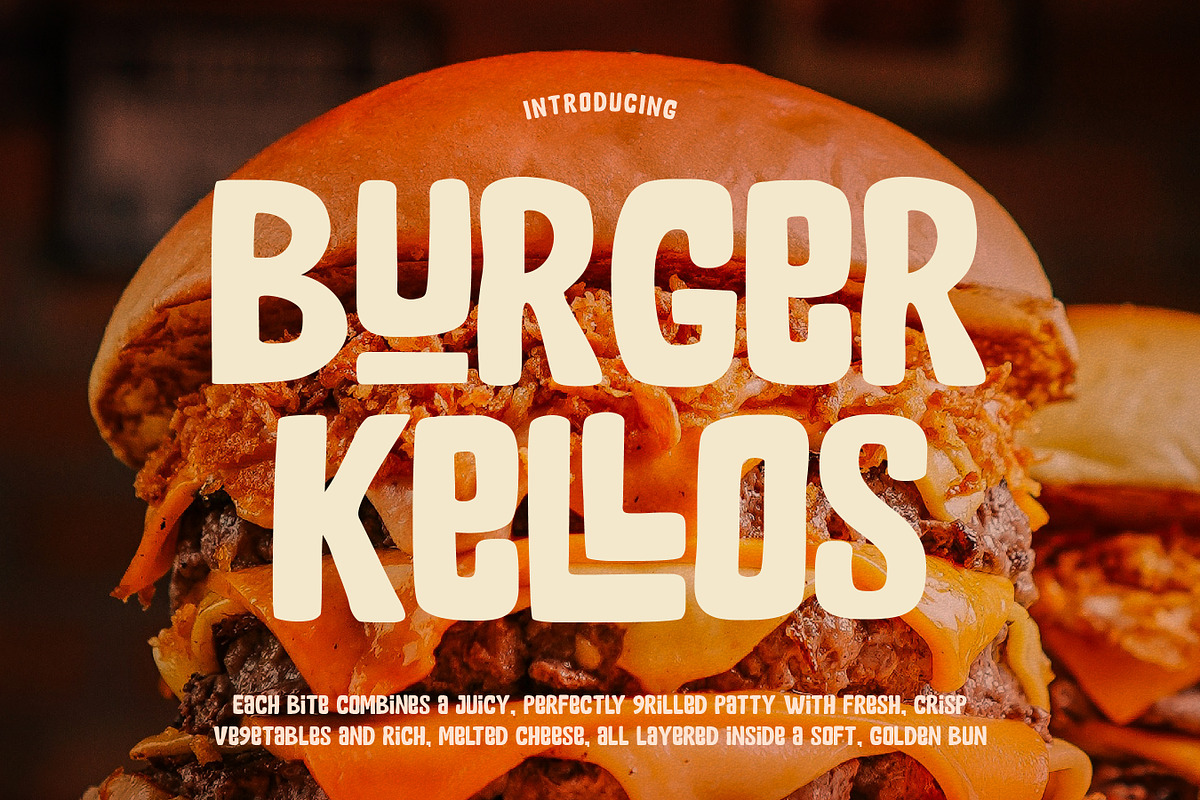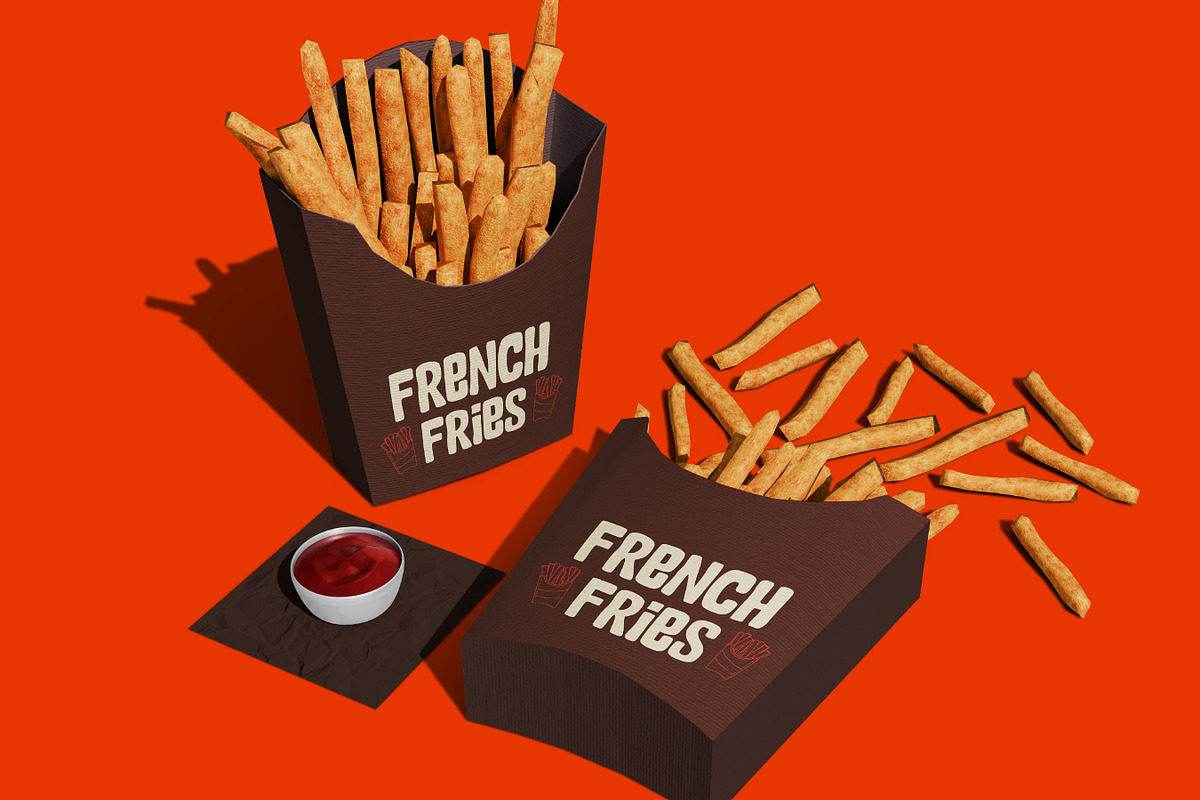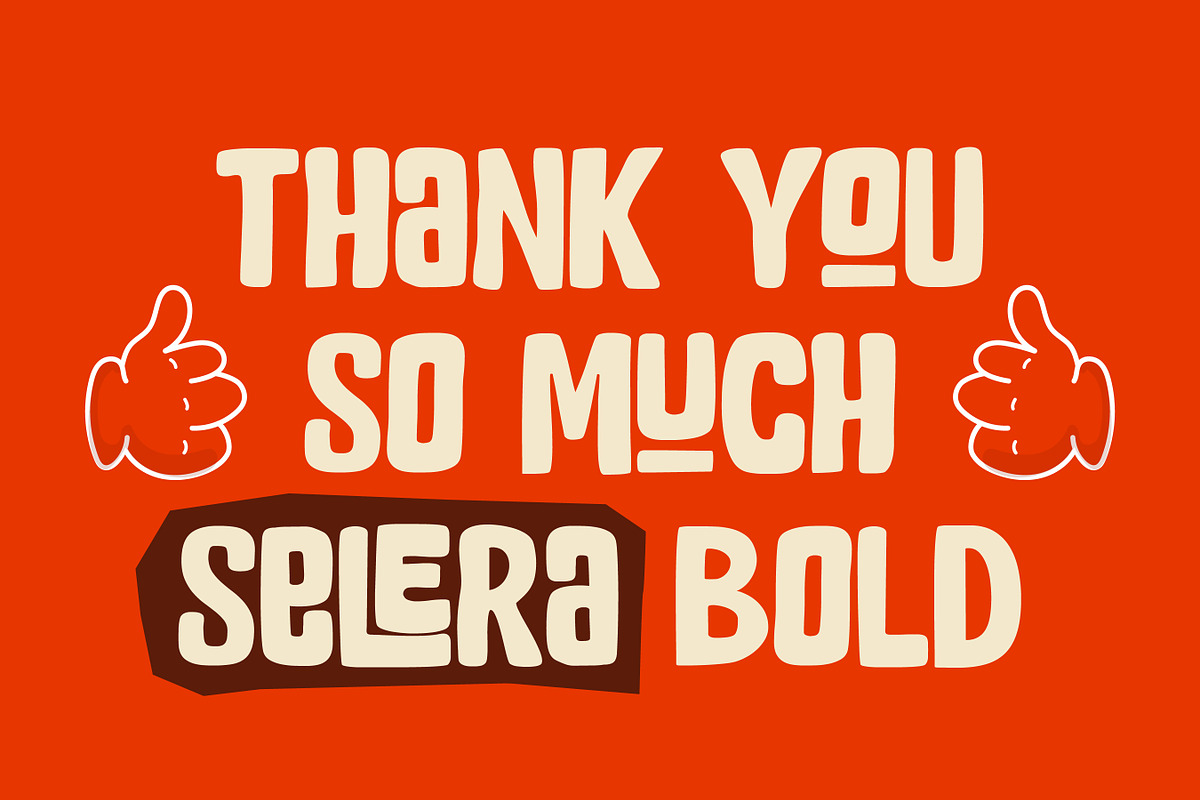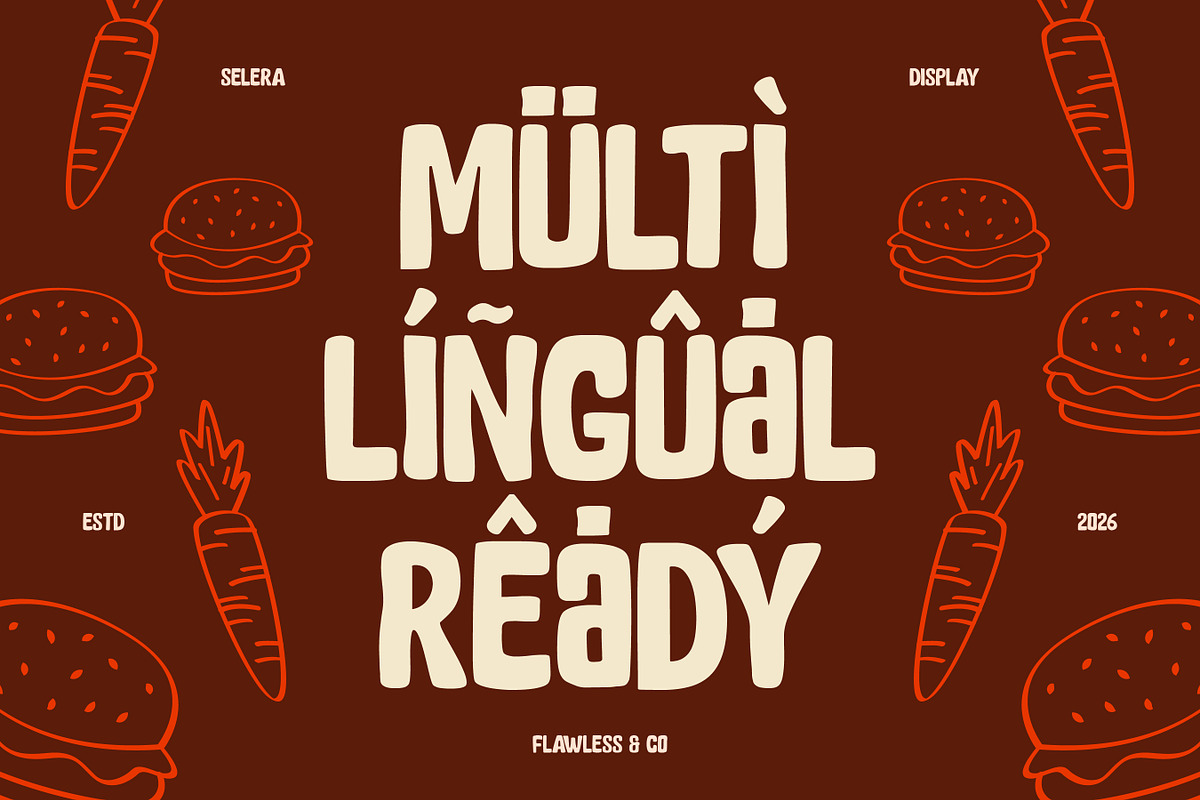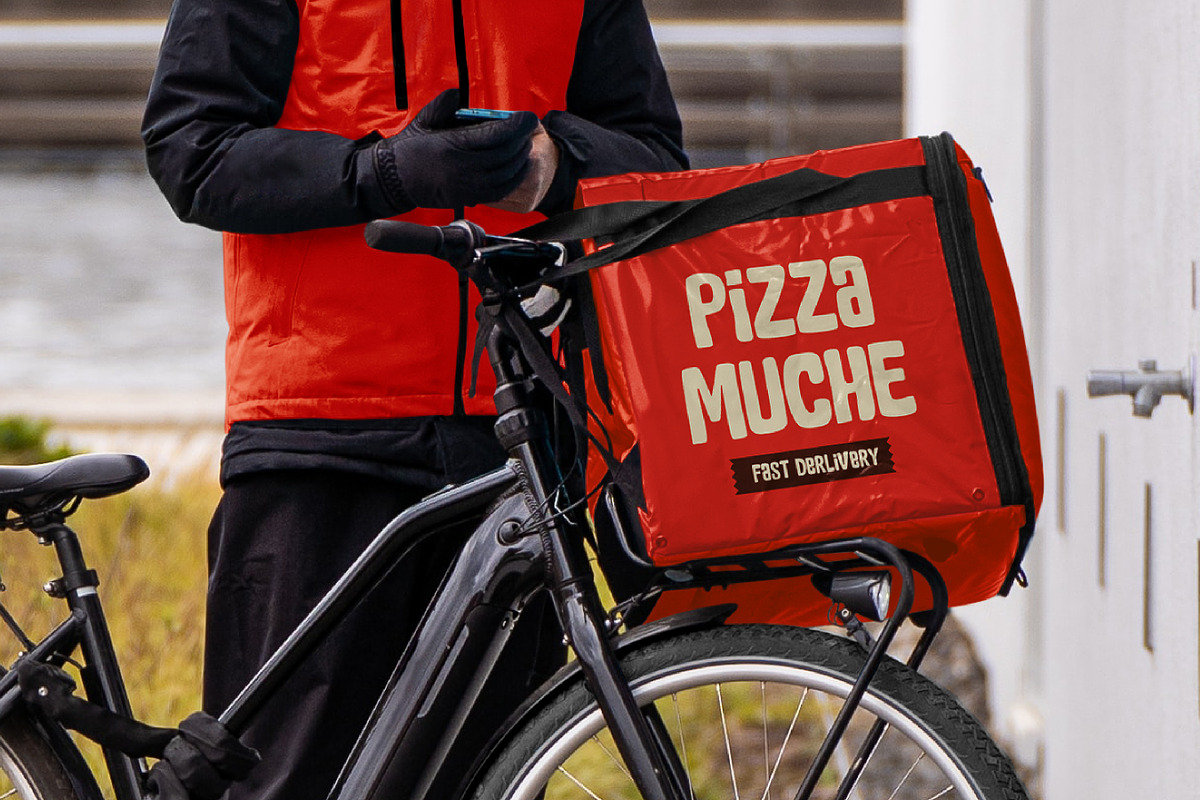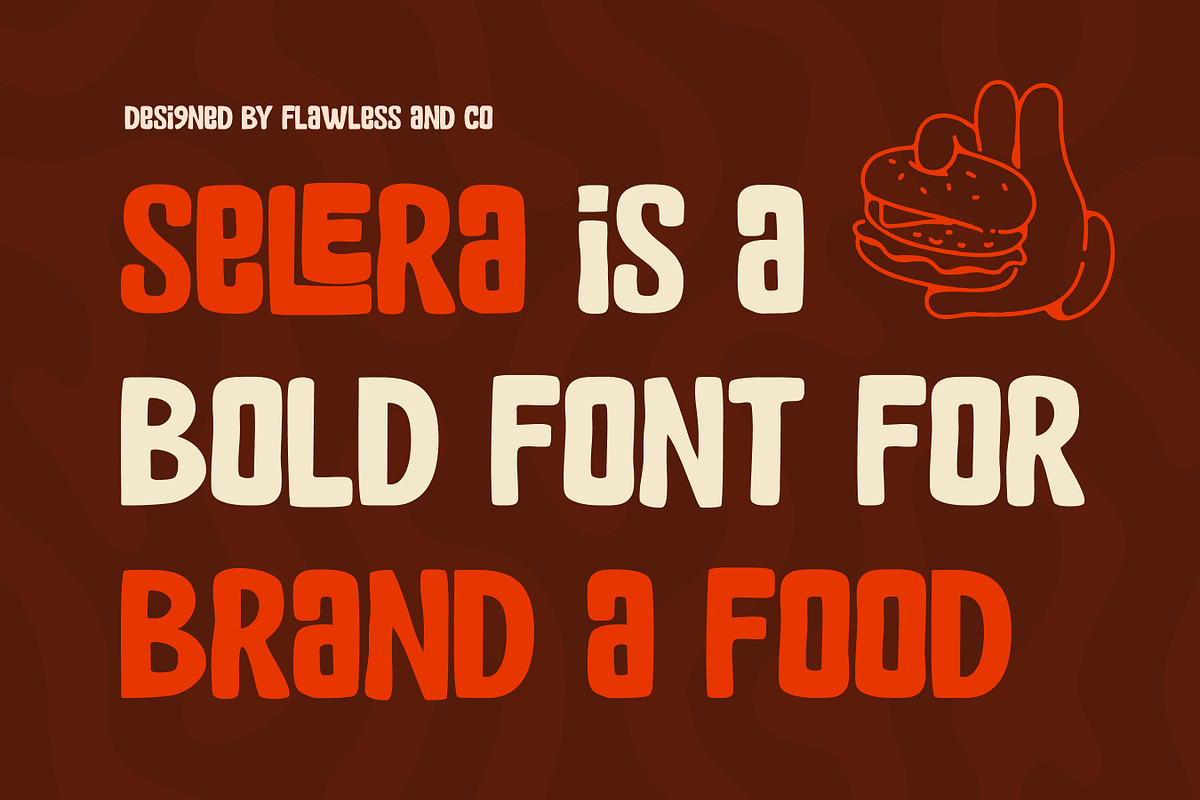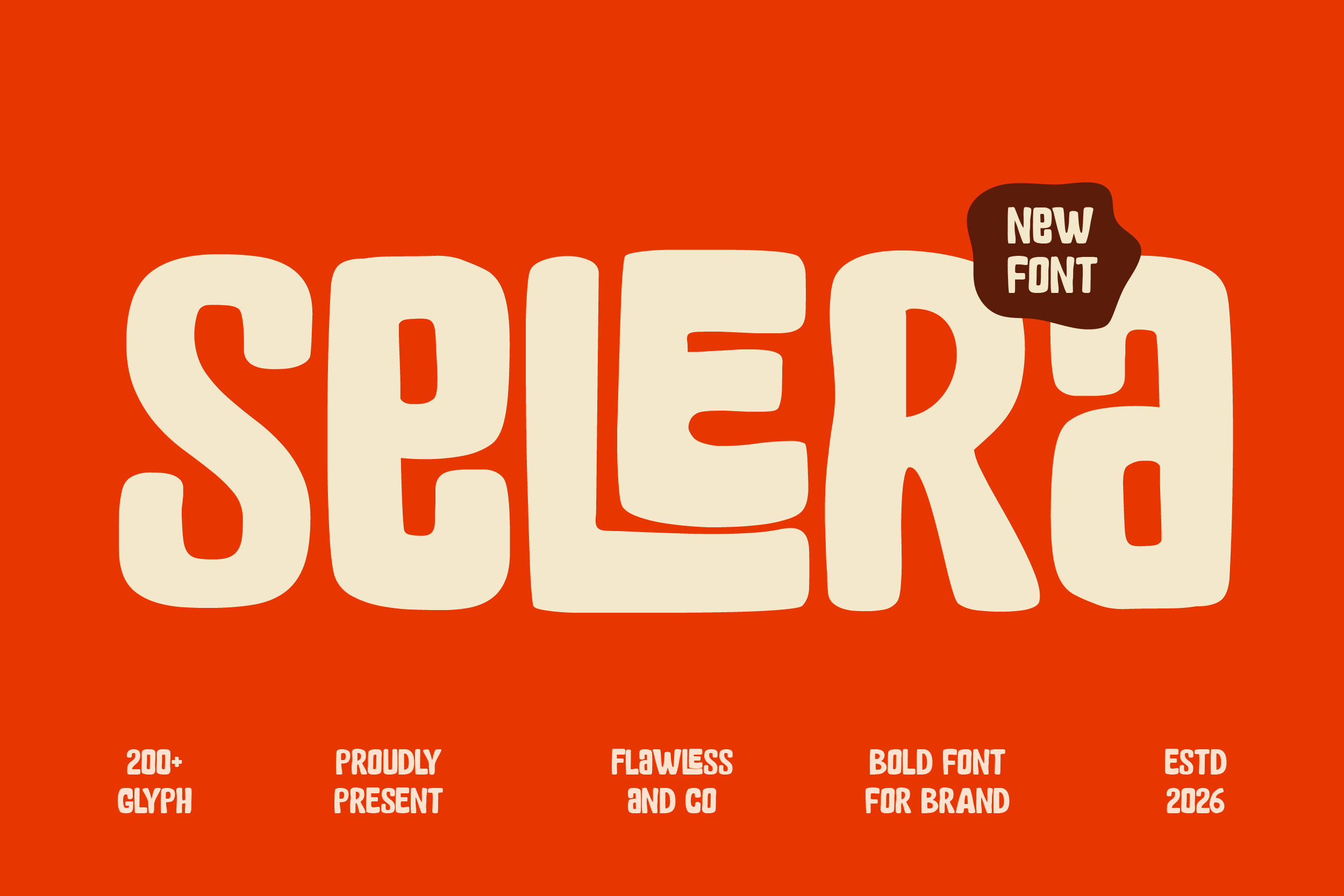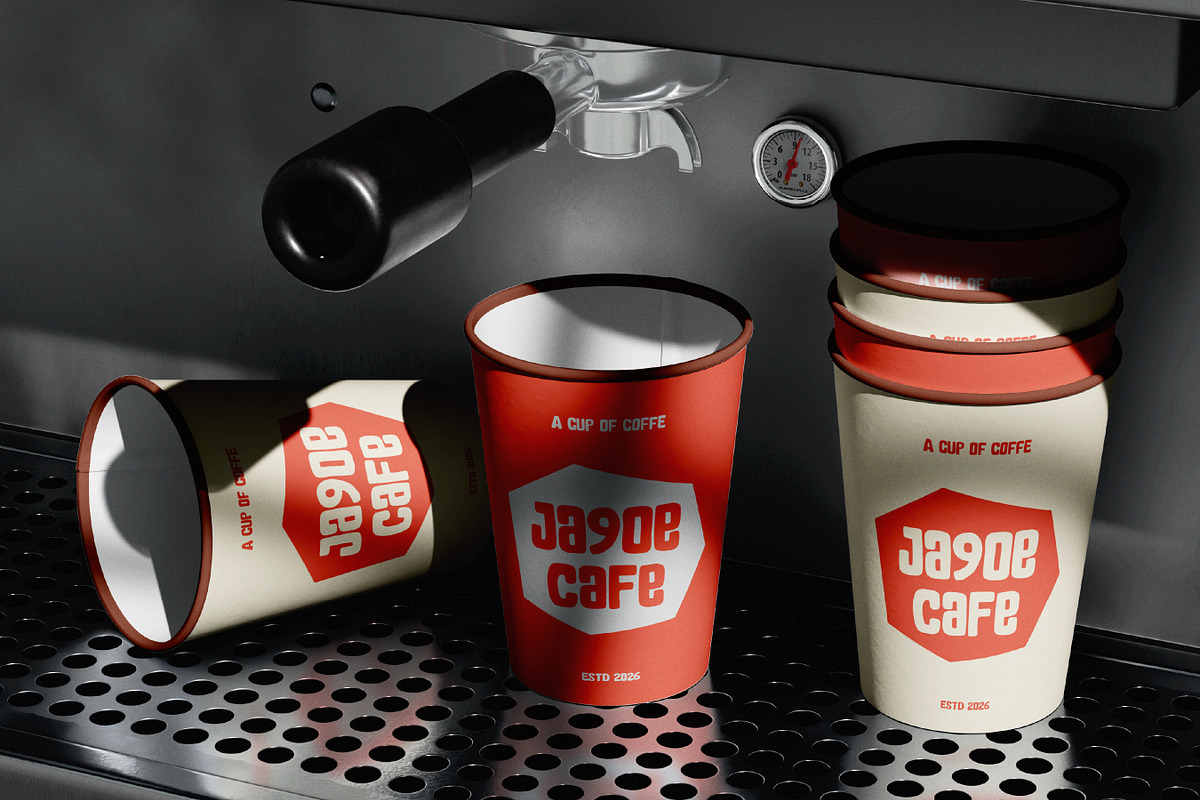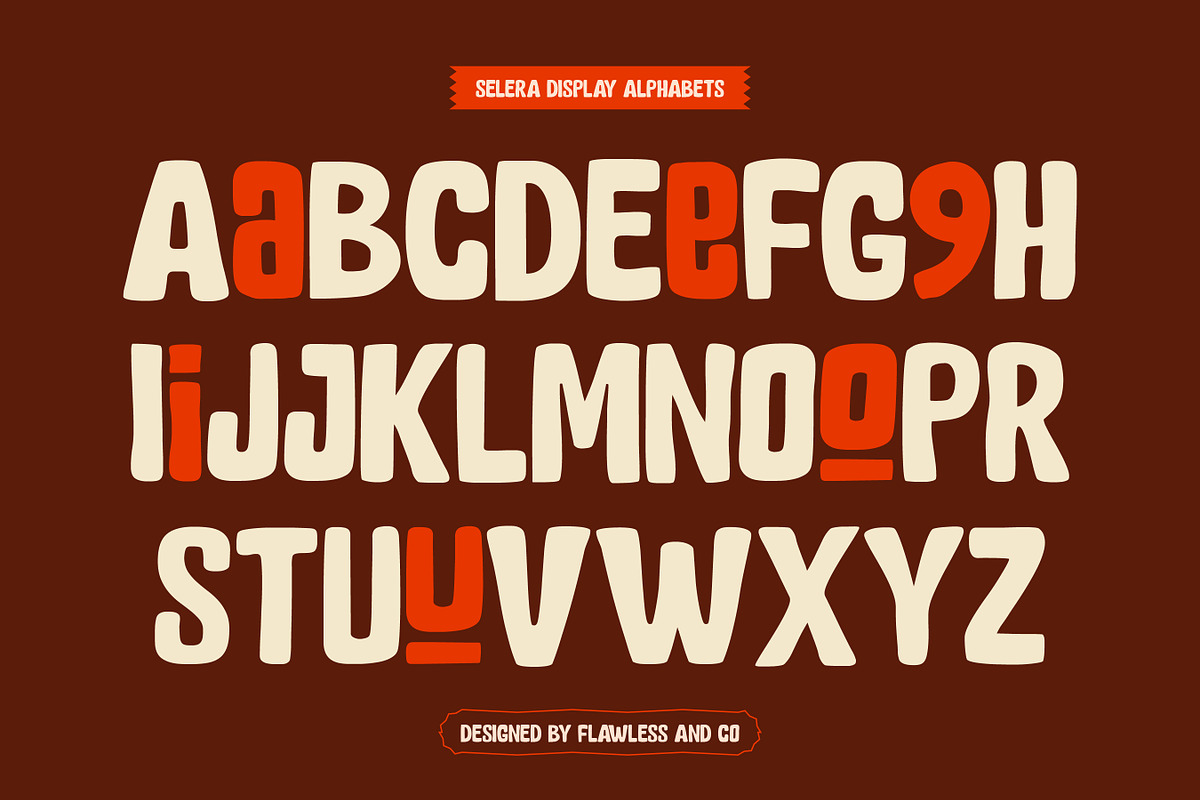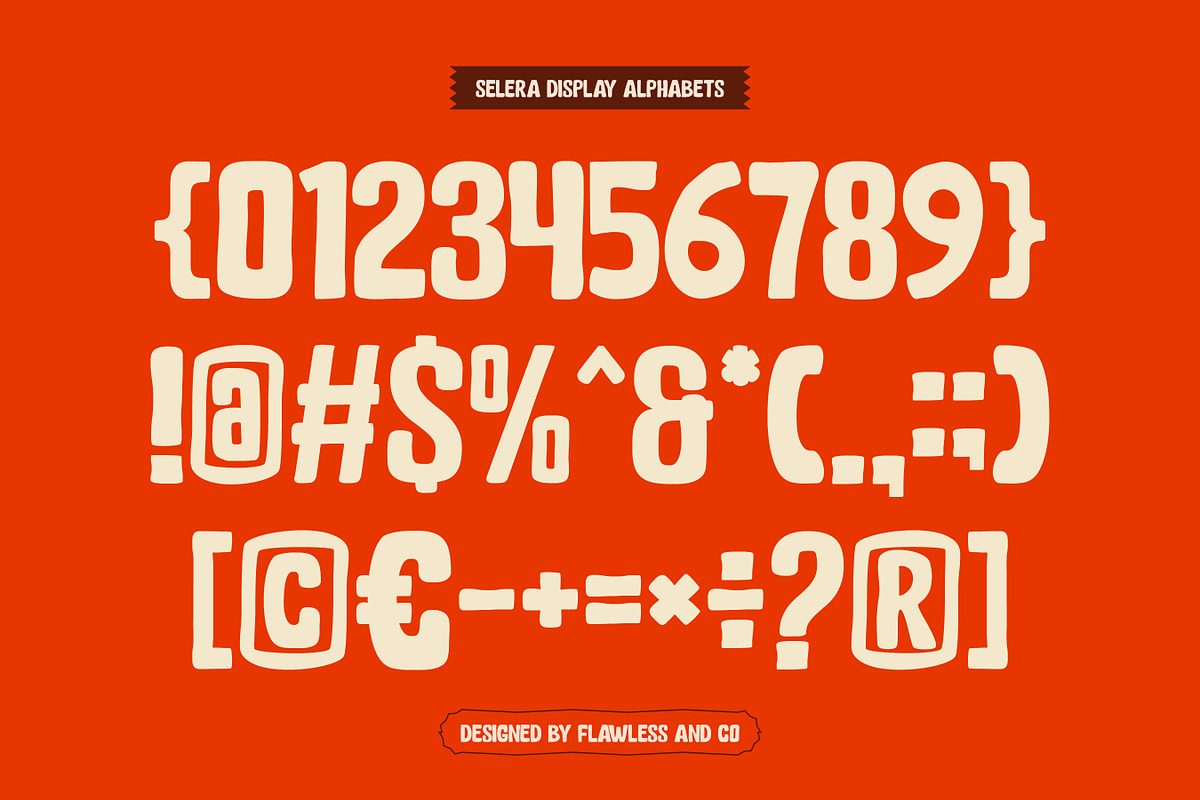
Selera - Playful Display Font
Selera is a modern bold display typeface designed to create a fun, flavorful, and attention-grabbing visual experience. Inspired by energetic branding styles, Selera features chunky letterforms, smooth edges, and a playful rhythm that instantly makes designs feel more lively and engaging. Its bold appearance gives excellent readability while adding a strong personality, making it perfect for brands that want to appear fresh, modern, and memorable.
Alternates & Ligatures
Who Should Use Selera?
Selera is perfect for designers, food brands, and creatives who want bold typography with a cheerful and expressive character. It’s especially suited for projects that need a modern display font with warmth and strong visual impact.
Suitable For:
Food and beverage branding
Restaurant and café design
Packaging and product labels
Social media promotions
Posters and advertising
Kids and playful branding
Creative logo design
Bold headline typography